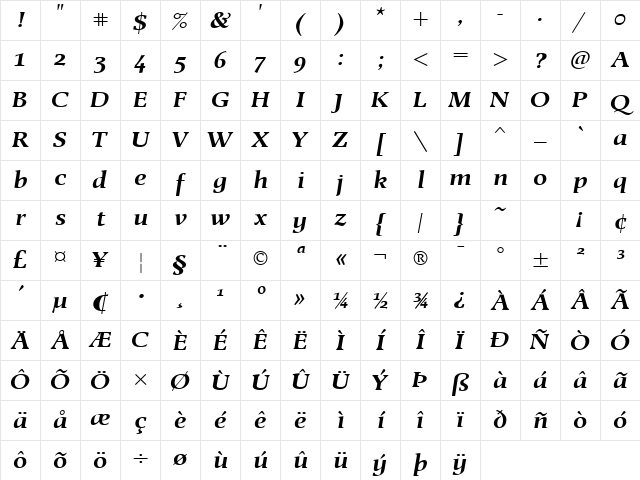
Berndal LT Std BoldItalic is a composed and adaptable typeface that performs quietly and consistently across a wide range of design contexts. The slanted form adds forward momentum and visual energy. Its bold stroke weight gives it real presence on the page.
Pro Tip: Use Berndal LT Std BoldItalic for emphasis, pull quotes, and subheadings where its slanted energy can add rhythm to the layout.